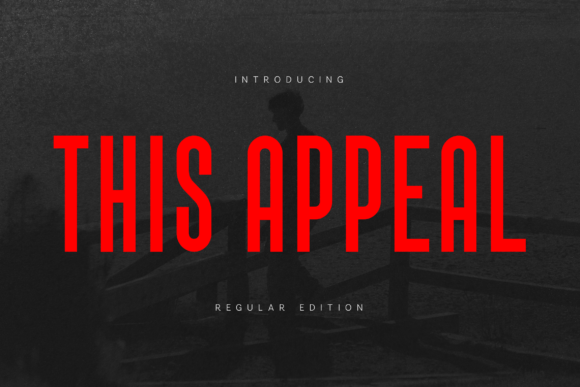
This Appeal Font: Bold, Clean & Made for Makers
It was 10 p.m., glue stick in hand, staring at a candle label mockup on my screen—again. The scent name “Honey & Smoke” looked soft, polite… almost apologetic. I needed something that matched the warmth of the soy wax and the quiet confidence of the handmade process. That’s when I opened This Appeal. And just like that—the label clicked.
This Appeal is a modern condensed display sans serif typeface built for moments like these: where space is tight, impact is essential, and your product deserves to speak with presence. It’s not fussy or overly decorative—it’s confident, clean, and quietly commanding. Think sharp corners softened just enough, tall x-heights for legibility at small sizes, and that subtle tension between compression and openness. It feels contemporary without chasing trends, grounded but never dull.
I first used This Appeal on kraft paper candle labels—printed on my home inkjet, then cut with my Cricut. Because it’s a condensed display font, I fit “Wild Lavender | Small Batch Soy Candle” cleanly across a 2.5-inch wide label without shrinking the text into illegibility. No squinting. No kerning panic. Just crisp, intentional presence. That same label printed beautifully on matte sticker stock for my Etsy listing images—and showed up sharp even as a tiny thumbnail on mobile.
It shines brightest where attention matters most: greeting cards with short, heartfelt phrases (“You’re Enough”), wedding welcome boards with couple names stacked elegantly, printable wall art with single-word affirmations (“Breathe”, “Rooted”, “Begin”), and boutique packaging tags tied with twine. Its structure holds up beautifully at 12 pt on a luggage tag, 36 pt on a mug design preview, and 120 pt on a farmhouse-style wooden sign mockup.
Here’s what makes This Appeal especially useful for makers:
I’ve paired This Appeal with three go-to fonts depending on the project’s mood:
1. A warm, neutral sans serif (like Montserrat or Inter) for body copy on greeting cards or product descriptions—clean contrast without competition.
2. A gentle serif (like Cormorant Garamond or Lora) for invitation suites, where This Appeal handles names and headings while the serif adds quiet elegance to details like time, date, and location.
3. A relaxed handwritten font (like Quicksand or Pacifico) for playful sticker sheets—This Appeal anchors bold phrases like “Yes Please” or “Made With Love”, while the script adds personality in supporting text.
Readability tips I’ve learned the hands-on way:
Last week, I reworked my entire shop banner using This Appeal for the headline “Handmade With Intention”. No extra graphics. No shadow effects. Just type, color, and space—and suddenly, the whole page felt more cohesive, more considered. Customers don’t read “typeface” — they feel tone, trust, and care. And This Appeal delivers that quietly, consistently, every time it appears on a label, card, or screen.
It’s become my shorthand for intentionality: the kind you build into a candle pour, stitch into a linen tag, or choose deliberately before hitting “print”. Not flashy. Not trendy. Just right—sharp enough to stand out, warm enough to welcome in.